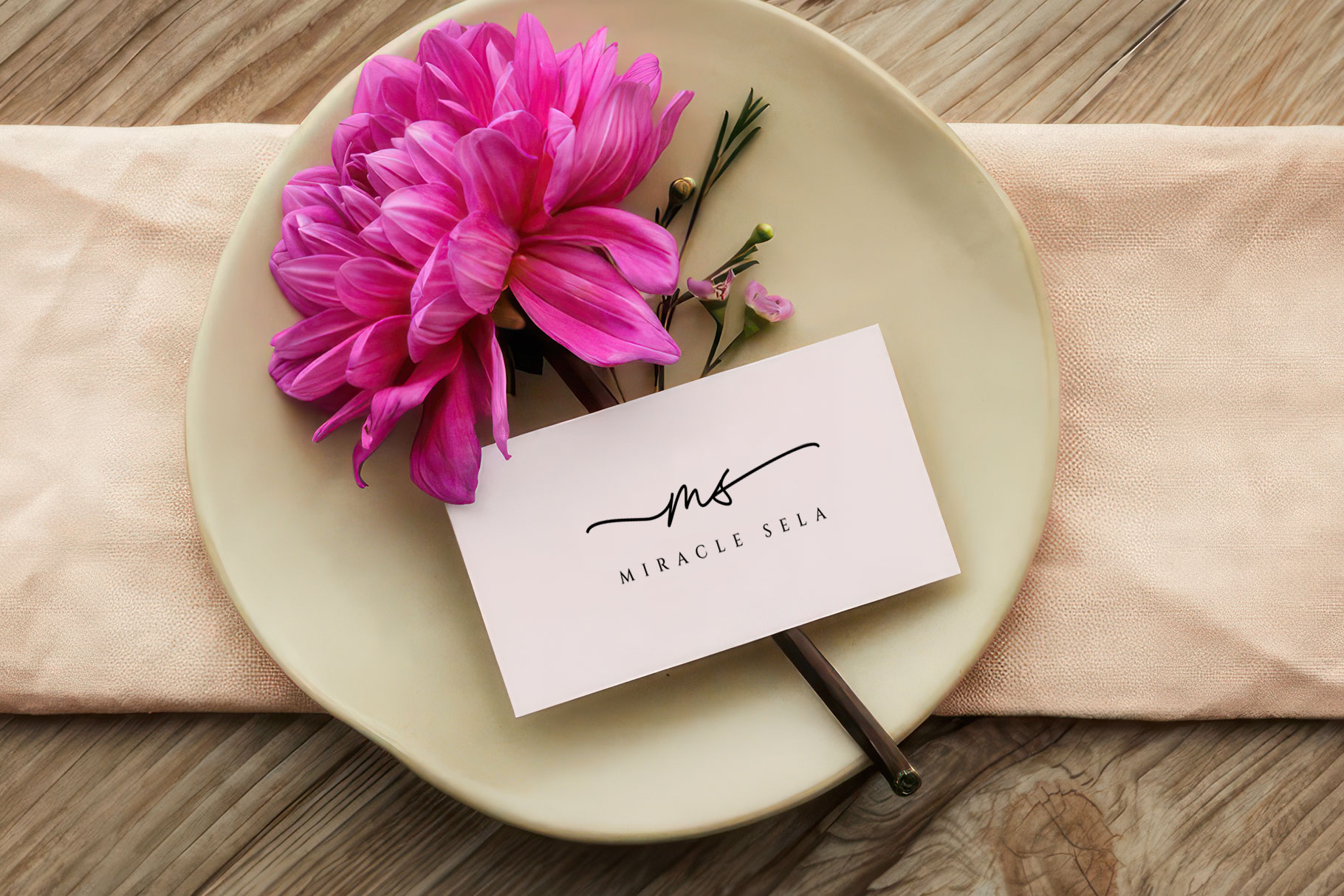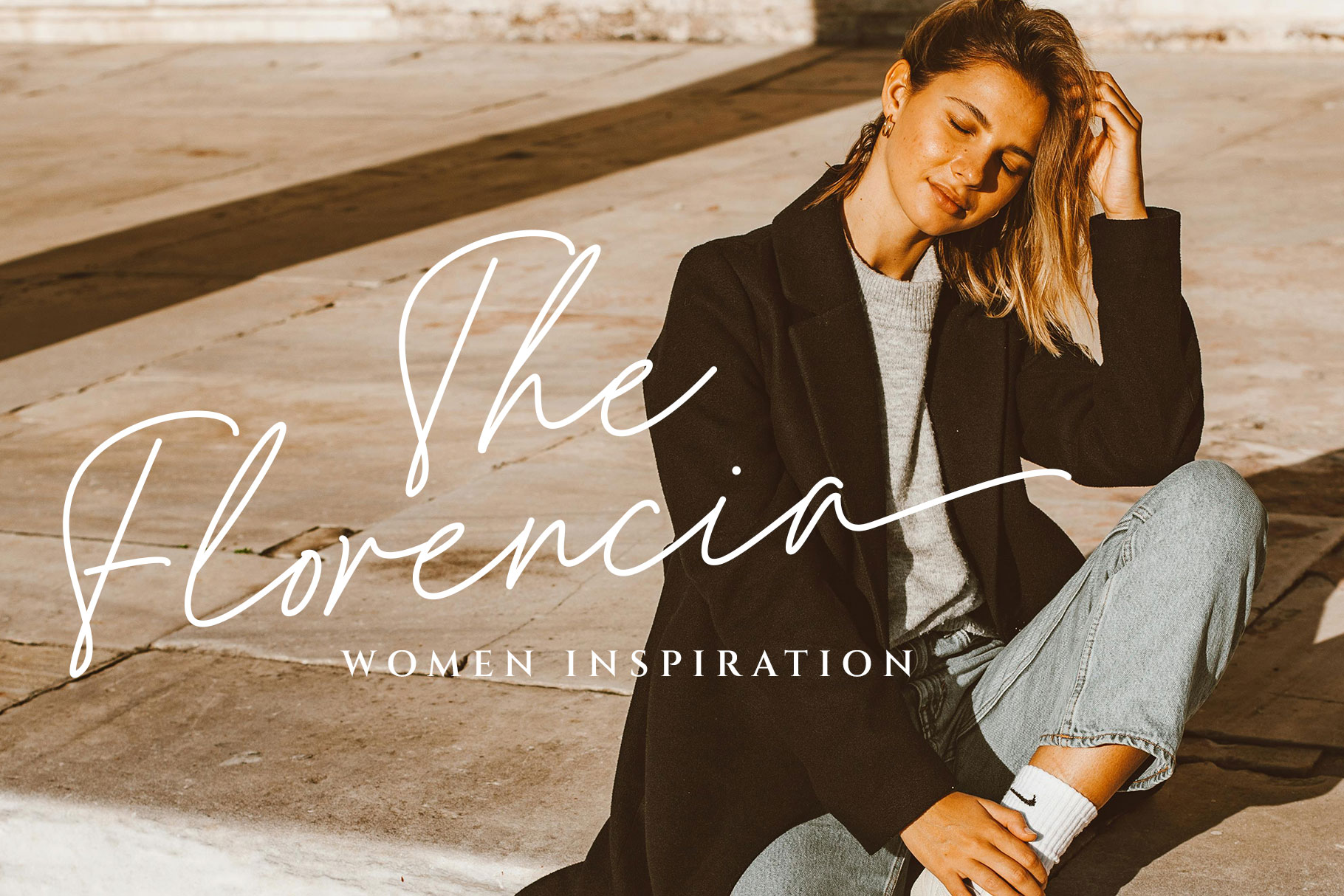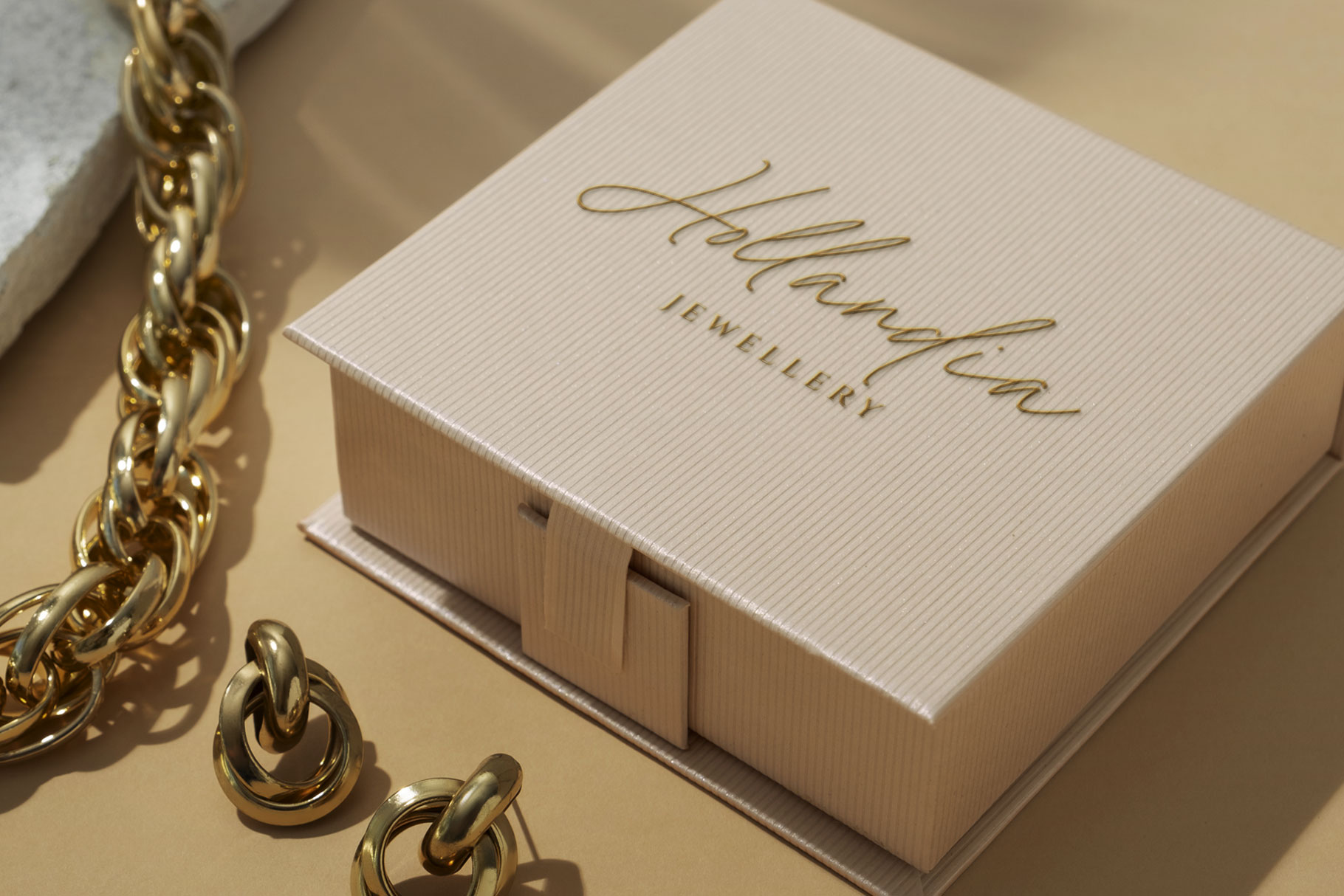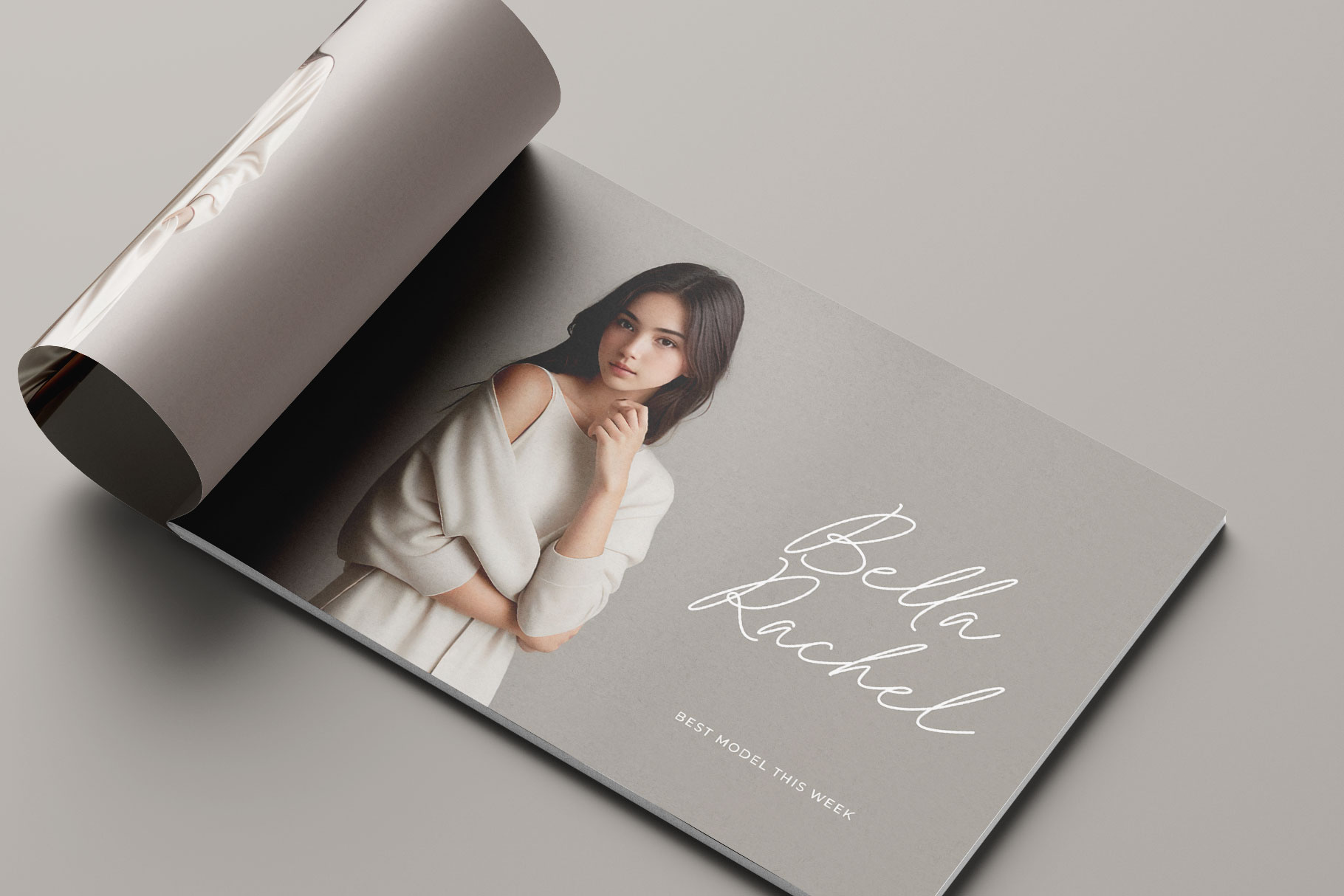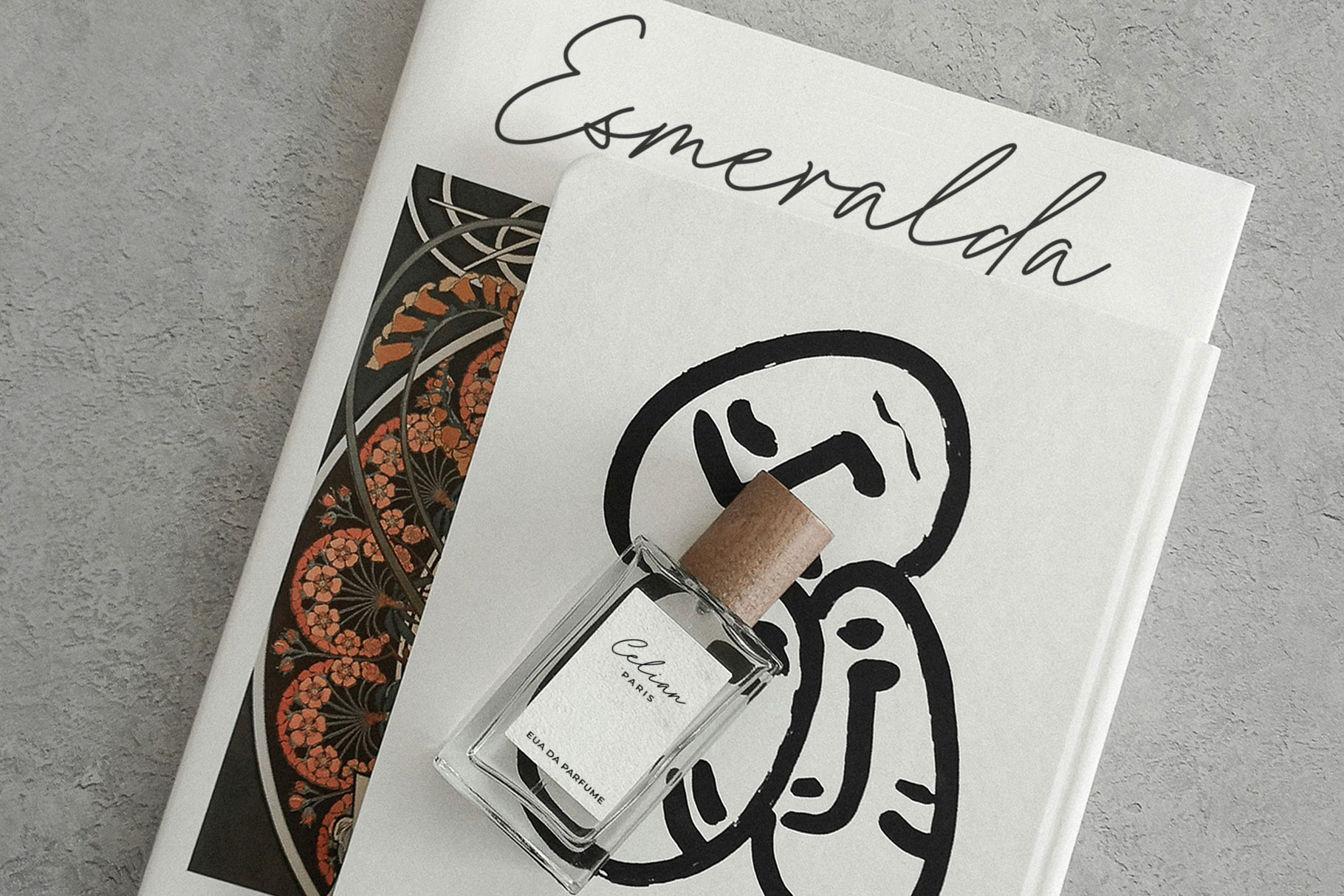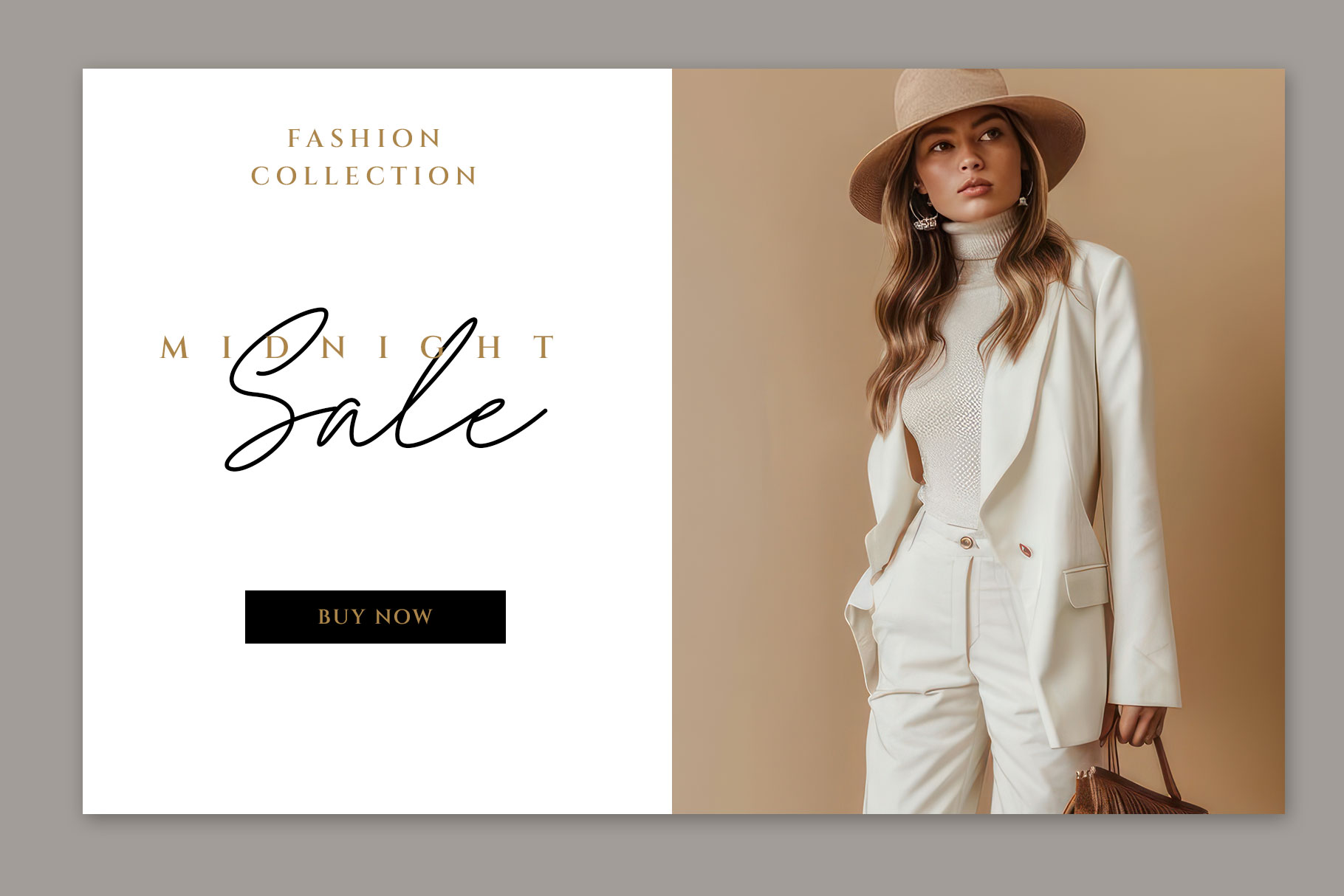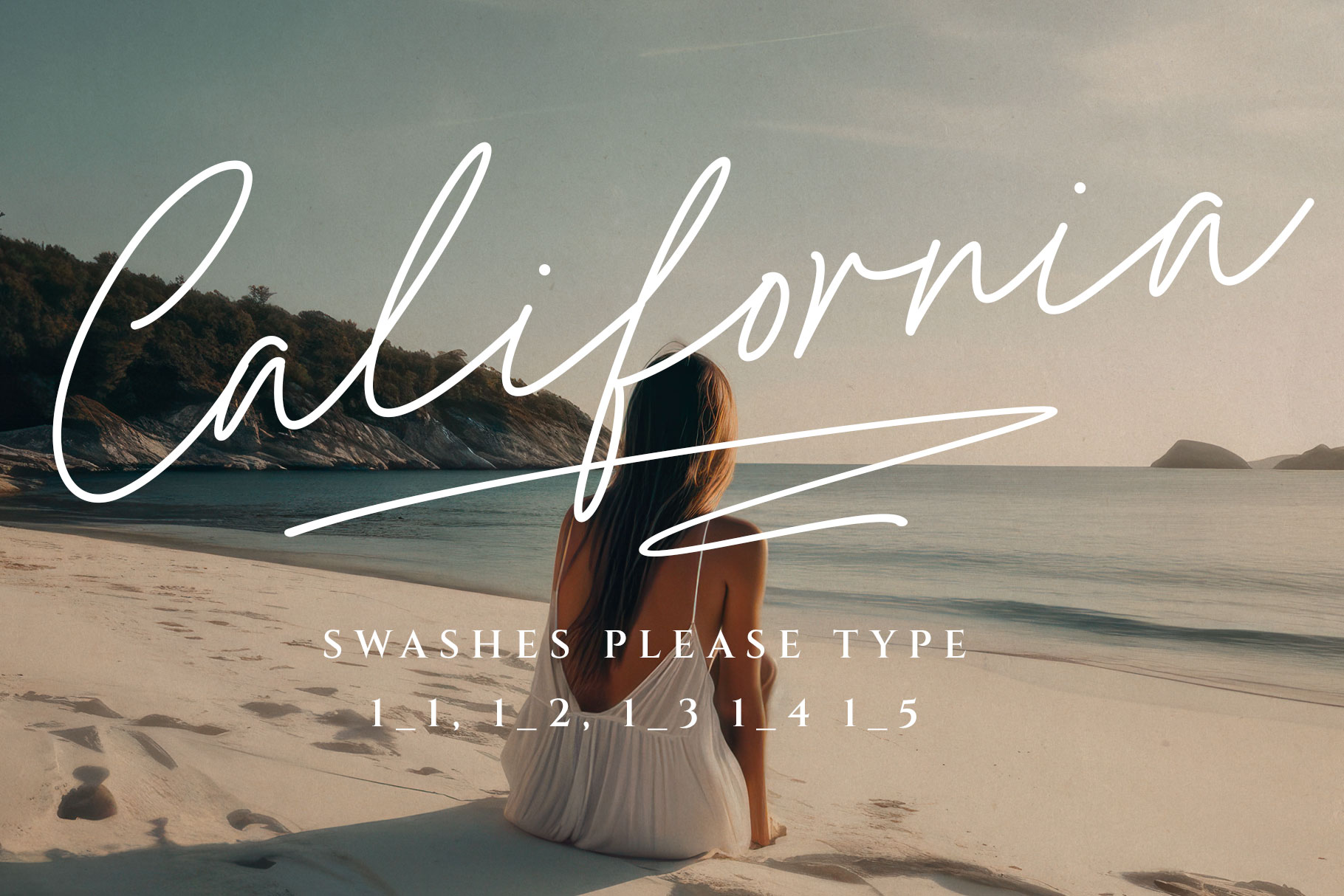
Kastiny Handwritten Script Font
Kastiny is handwritten script font made by rantautype studio. We make font look classy, elegant, modern and easy to use. Kastiny bring sophisticated of stylish font to make you design project more stand out,
Kastiny is a perfectly choice for any creative endeavor, chic, lifestyle design such as logos, advertisements, watermark on photography, stationery, branding project, display and magazine, invitation, corporate brand, product design, label, business project and other project with handwritten taste.